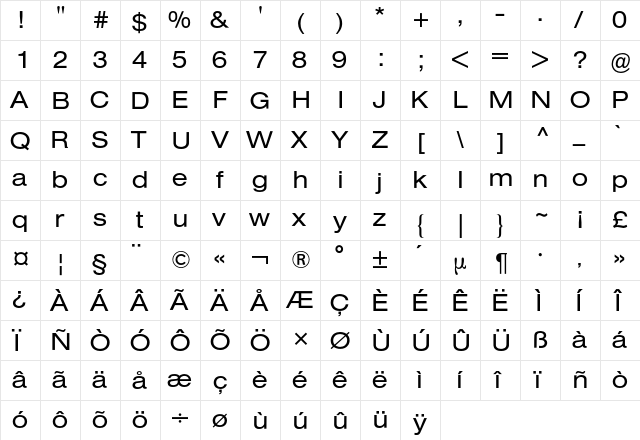
Helvetica Extended BQ Regular
Design Context for Helvetica Extended BQ Typeface
Helvetica Extended BQ is a composed and adaptable typeface that performs quietly and consistently across a wide range of design contexts.
Pro Tip: Use Helvetica Extended BQ in both headline and body roles to test its range before committing to a single application.